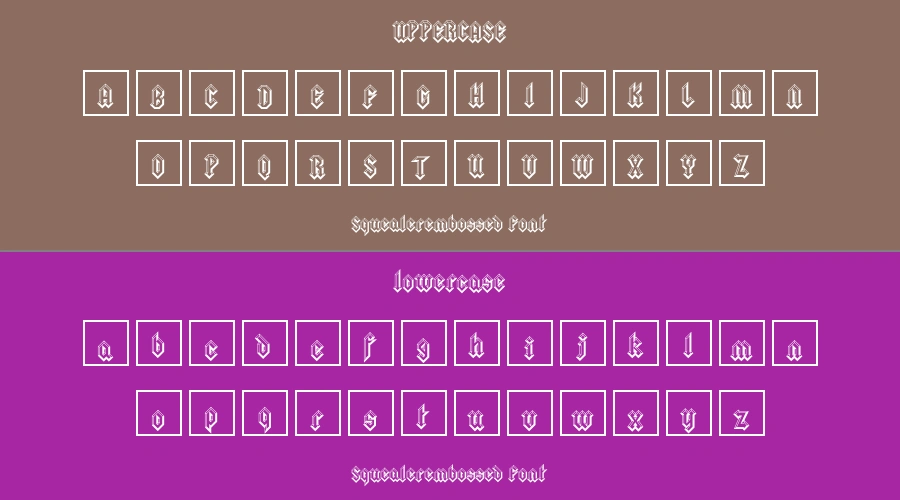
About Squealerembossed Font
When typographic excellence matters most, Squealerembossed Font delivers through its thoughtful blend of impactful forms and consistency. Specially crafted for advertising headers, it offers the versatility and professional authority required for sophisticated design work. Every detail serves a purpose.
The character set showcases thoughtful details like brush influence alongside functional initial forms. This proves especially valuable in brand logos, where brand recognition directly influences results. Particular attention was paid to curve radius and design lineage during development.